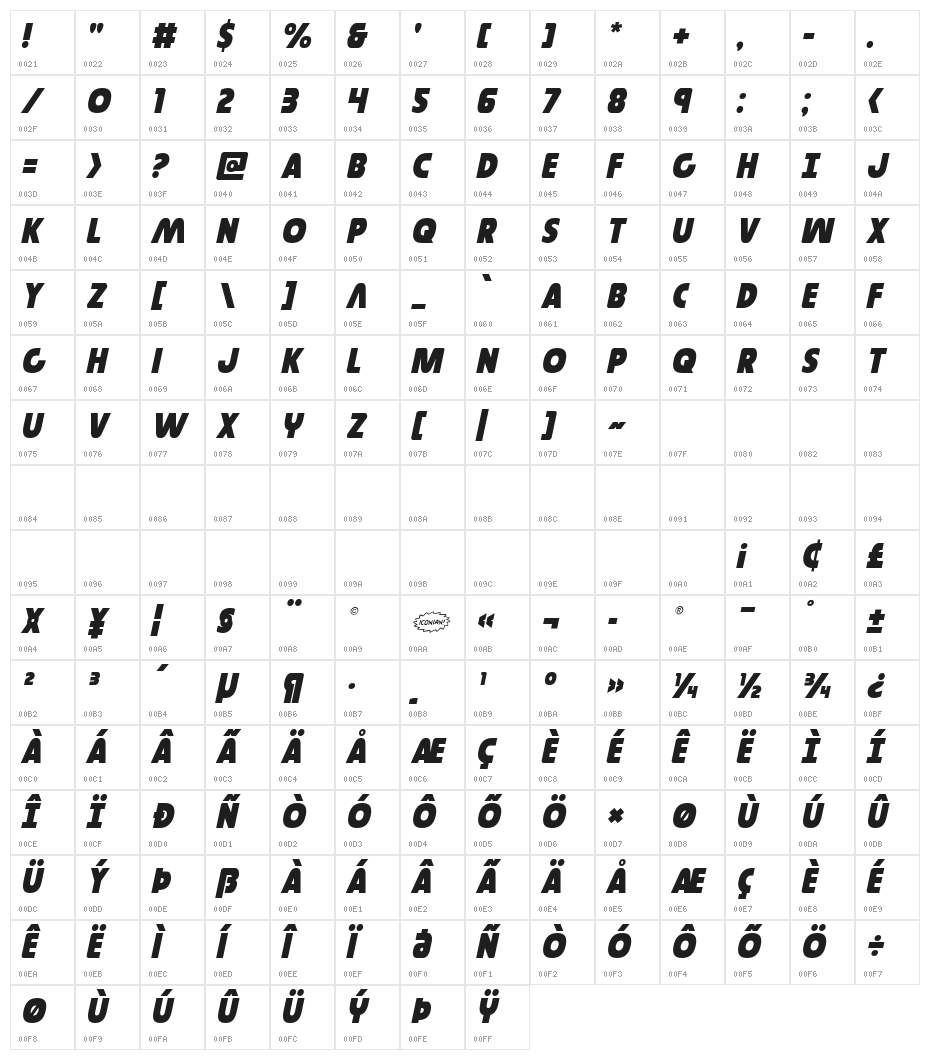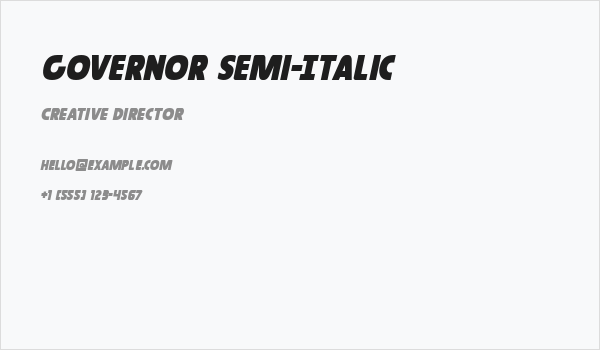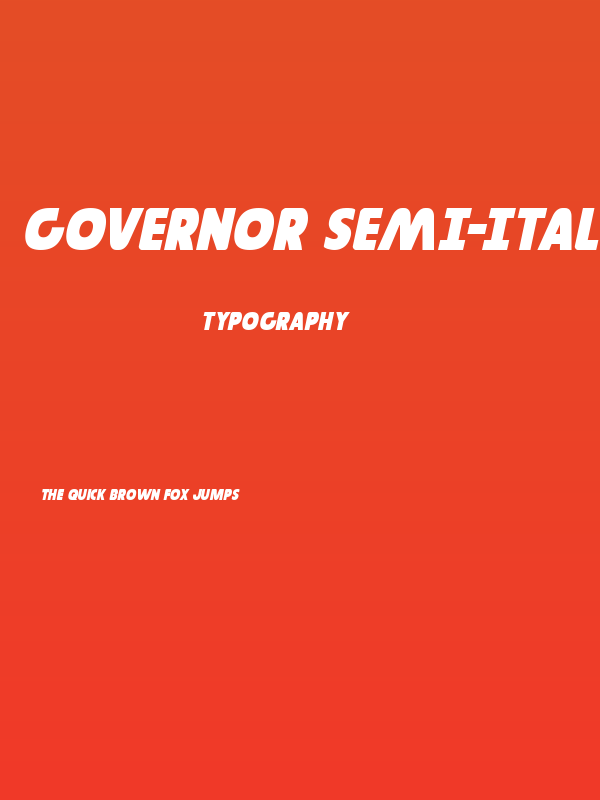
Governor Semi-Italic Font
Governor Semi-Italic Description
This font exhibits a bold and dynamic style with a semi-italic slant, giving it a sense of movement and energy. The characters are robust and slightly condensed, with a strong presence that commands attention. The strokes are thick and consistent, providing a uniform appearance across all characters. The uppercase and lowercase letters maintain a cohesive look, while the numerals and special characters are designed to complement the overall aesthetic. This font is well-suited for projects that require a bold statement and a modern touch.
| Proposed Projects | Ideal for headlines, posters, branding, and advertising materials where a strong and modern impression is desired. |